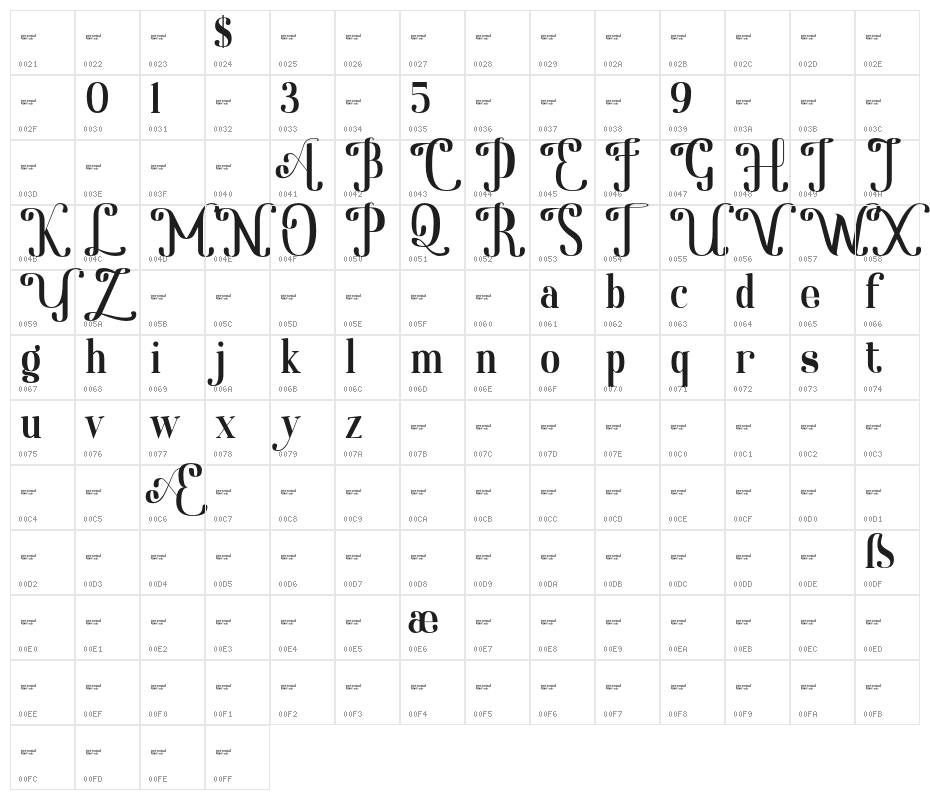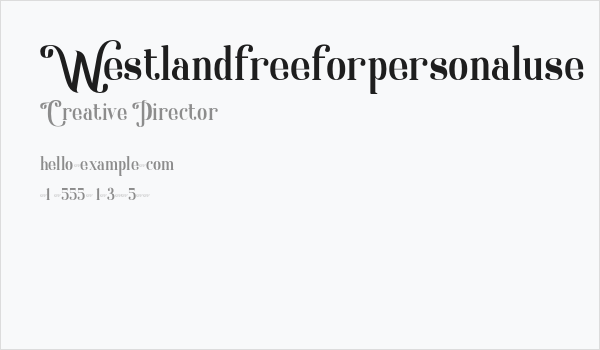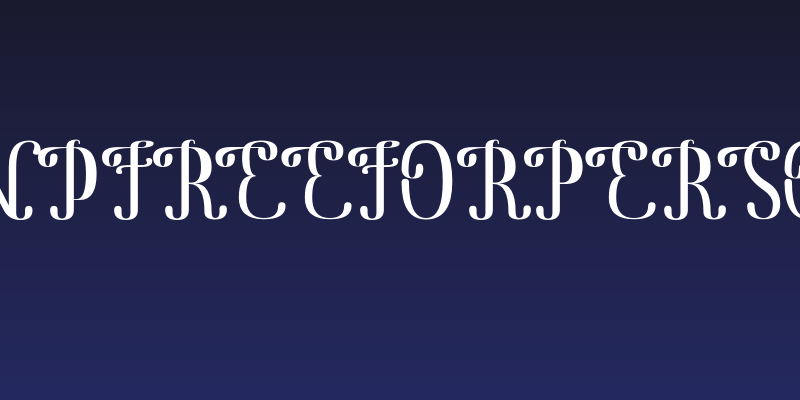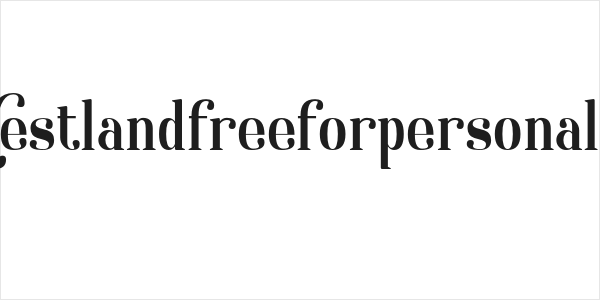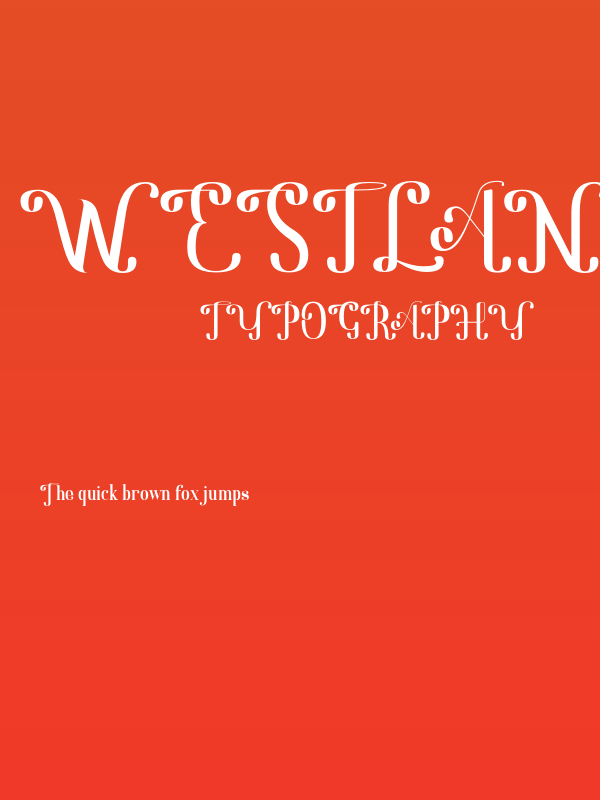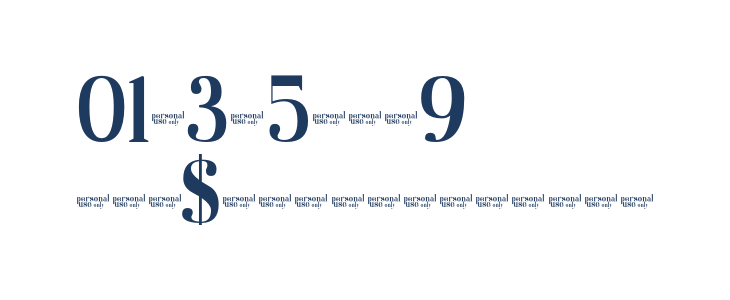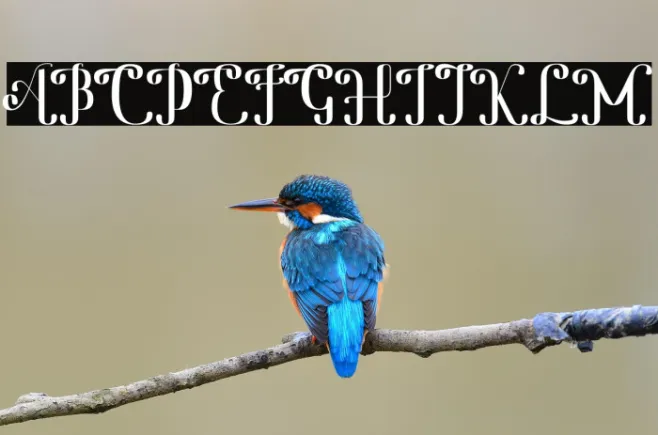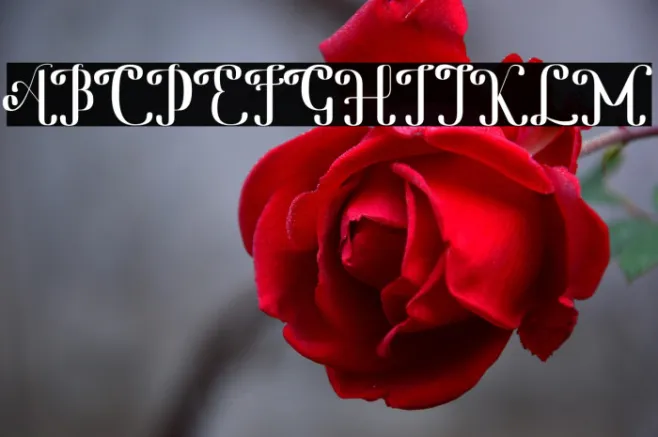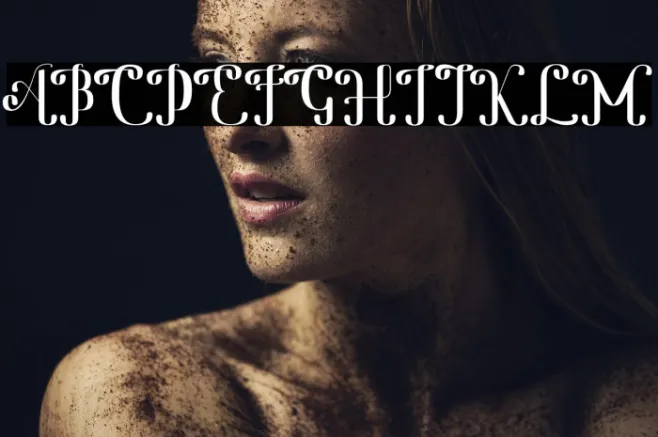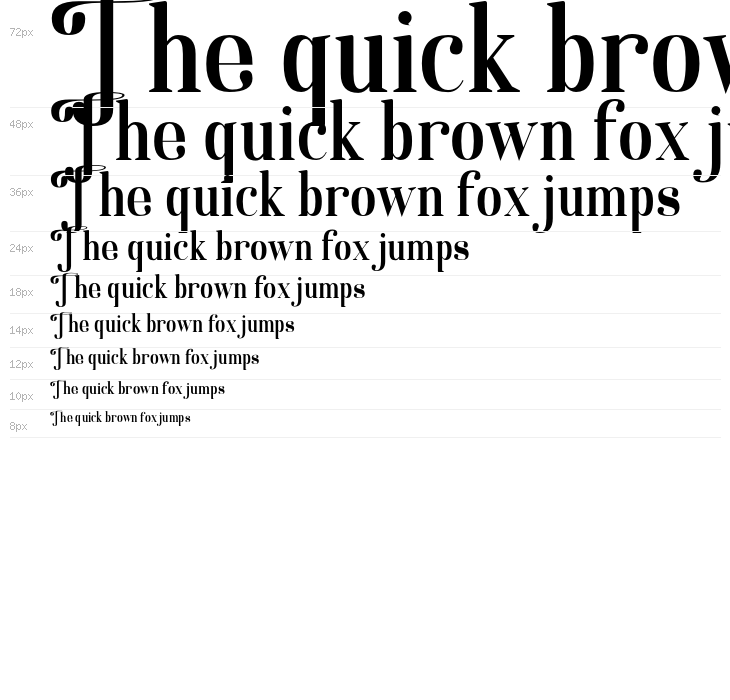
Westlandfreeforpersonaluse Font
Westlandfreeforpersonaluse Description
This font features a distinct blend of decorative and classic elements, characterized by its ornate uppercase letters that incorporate elegant swirls and loops. The lowercase letters maintain a more traditional serif style, offering a balanced contrast to the elaborate uppercase. The numerals are bold and prominent, ensuring readability while maintaining the overall aesthetic. Special characters are designed with a similar attention to detail, making them suitable for various creative applications. The font's unique style makes it ideal for projects that require a touch of sophistication and flair.
| Proposed Projects | Ideal for wedding invitations, branding, logo design, and decorative headings. |